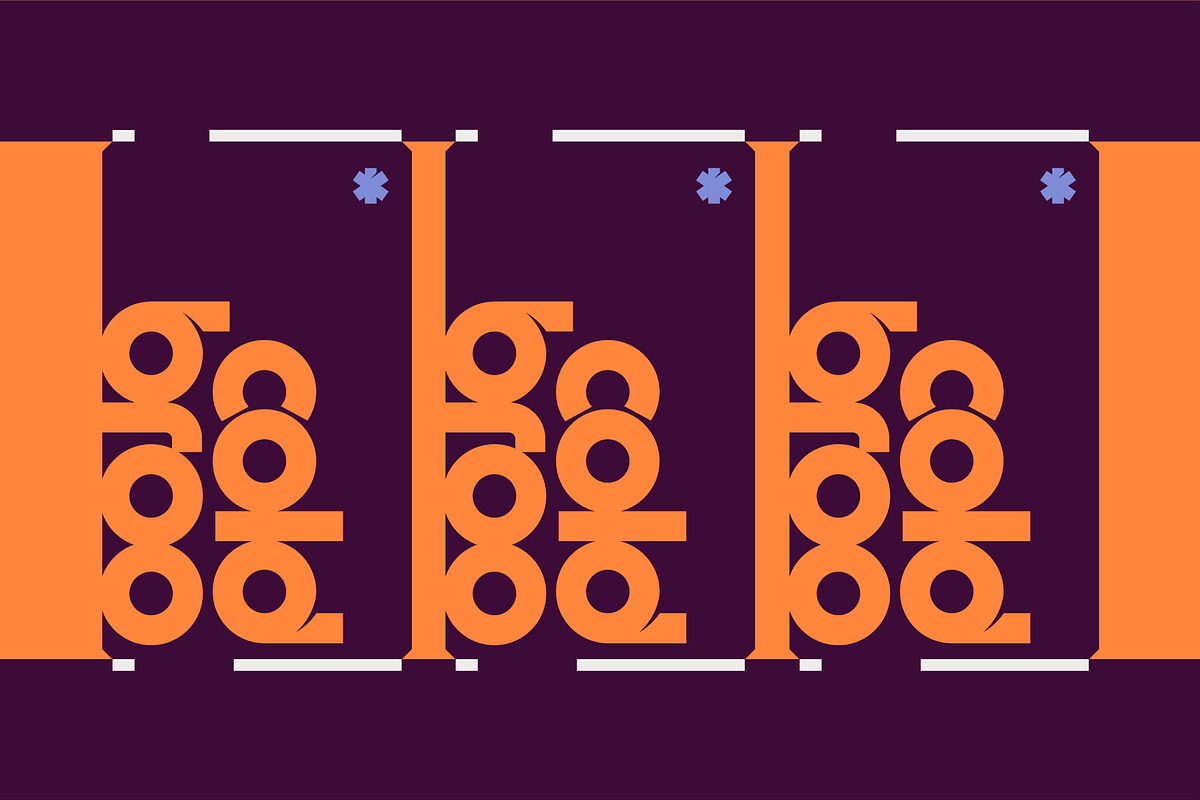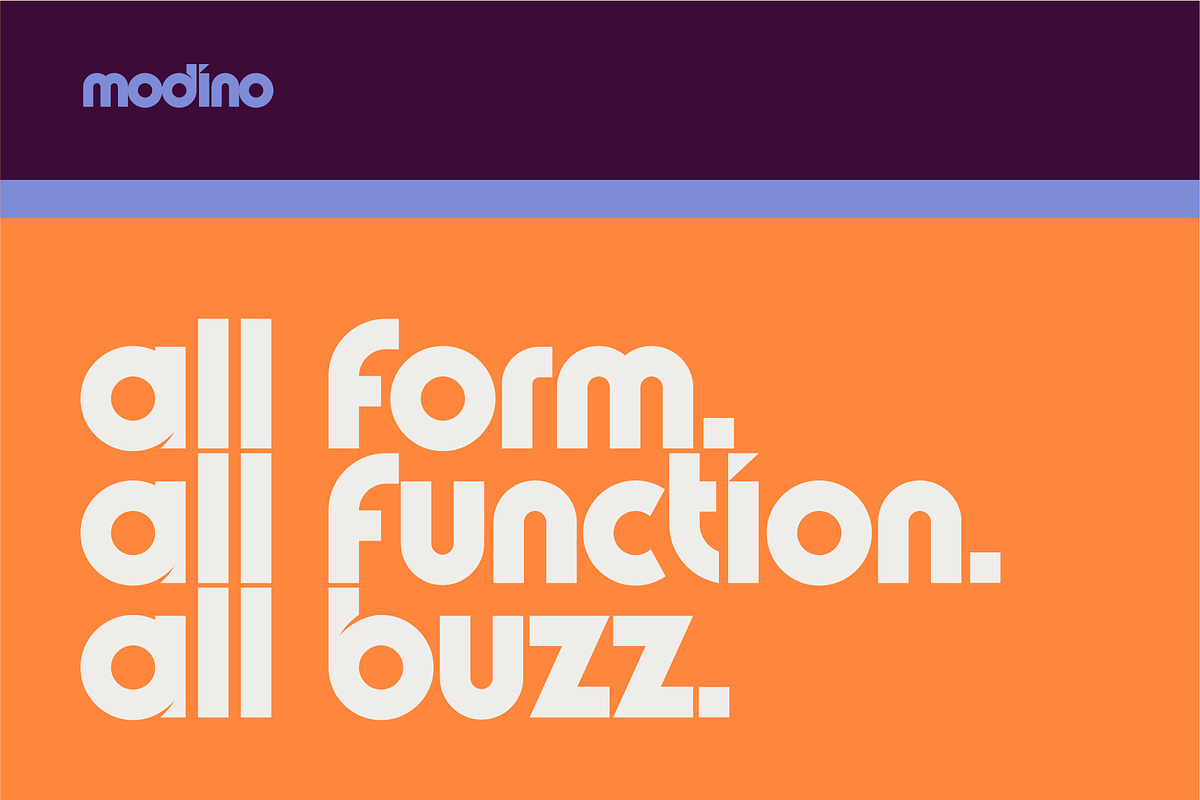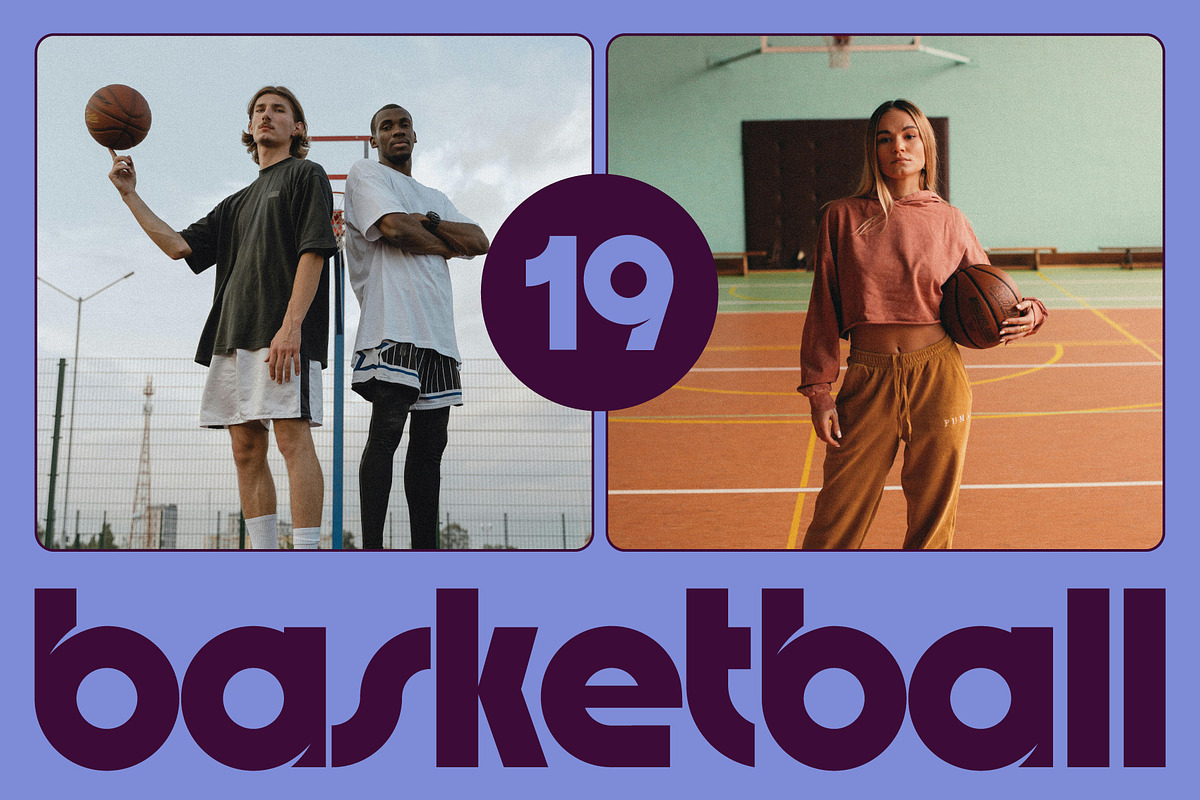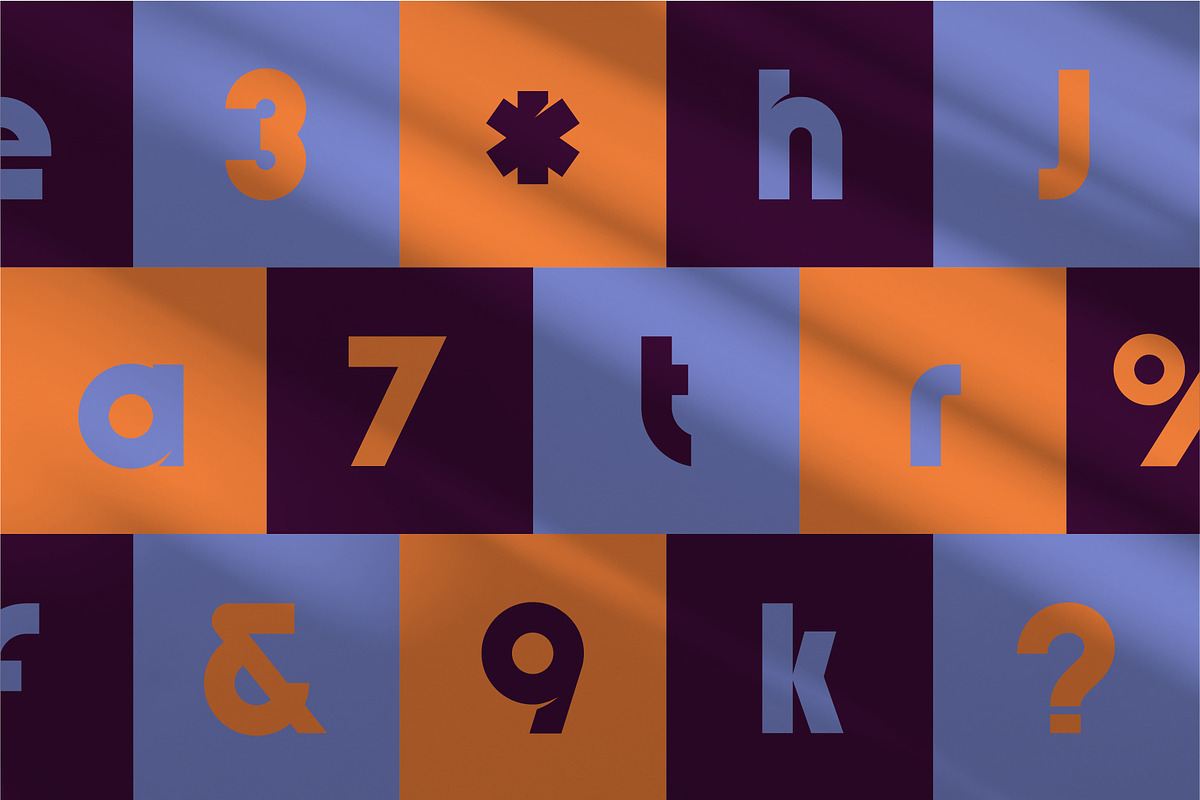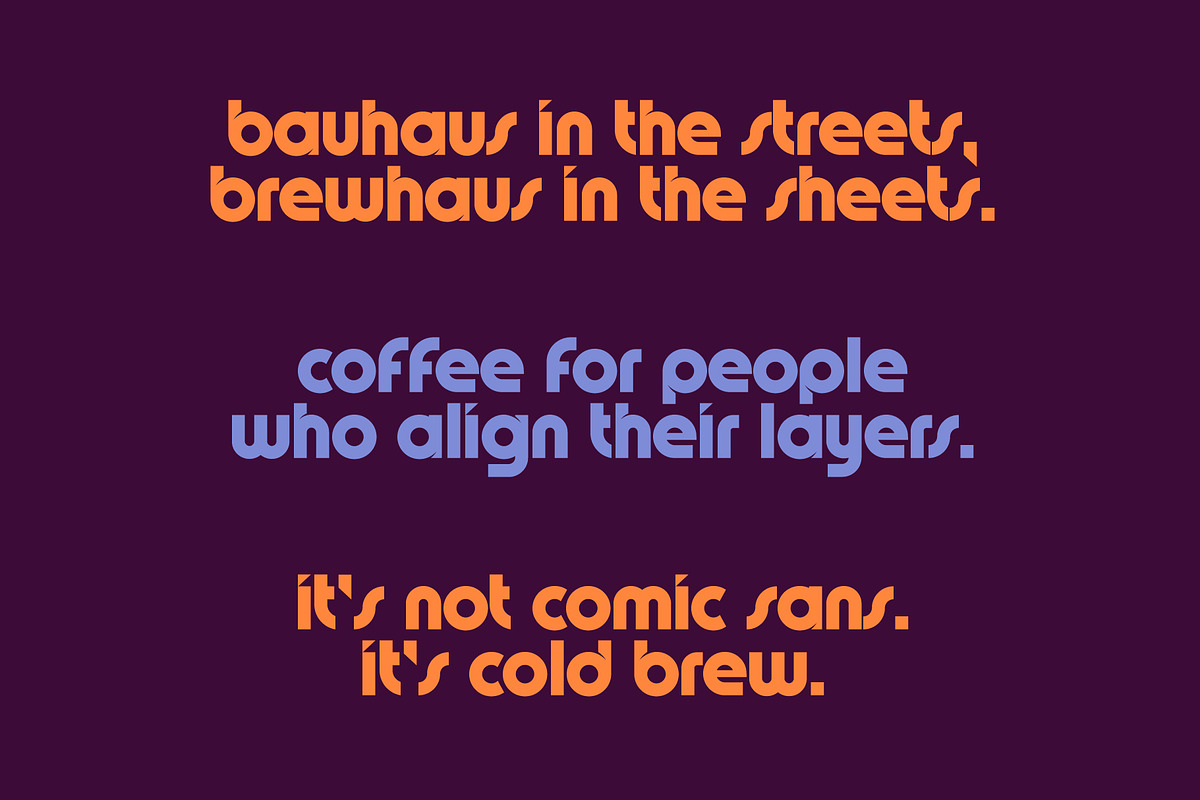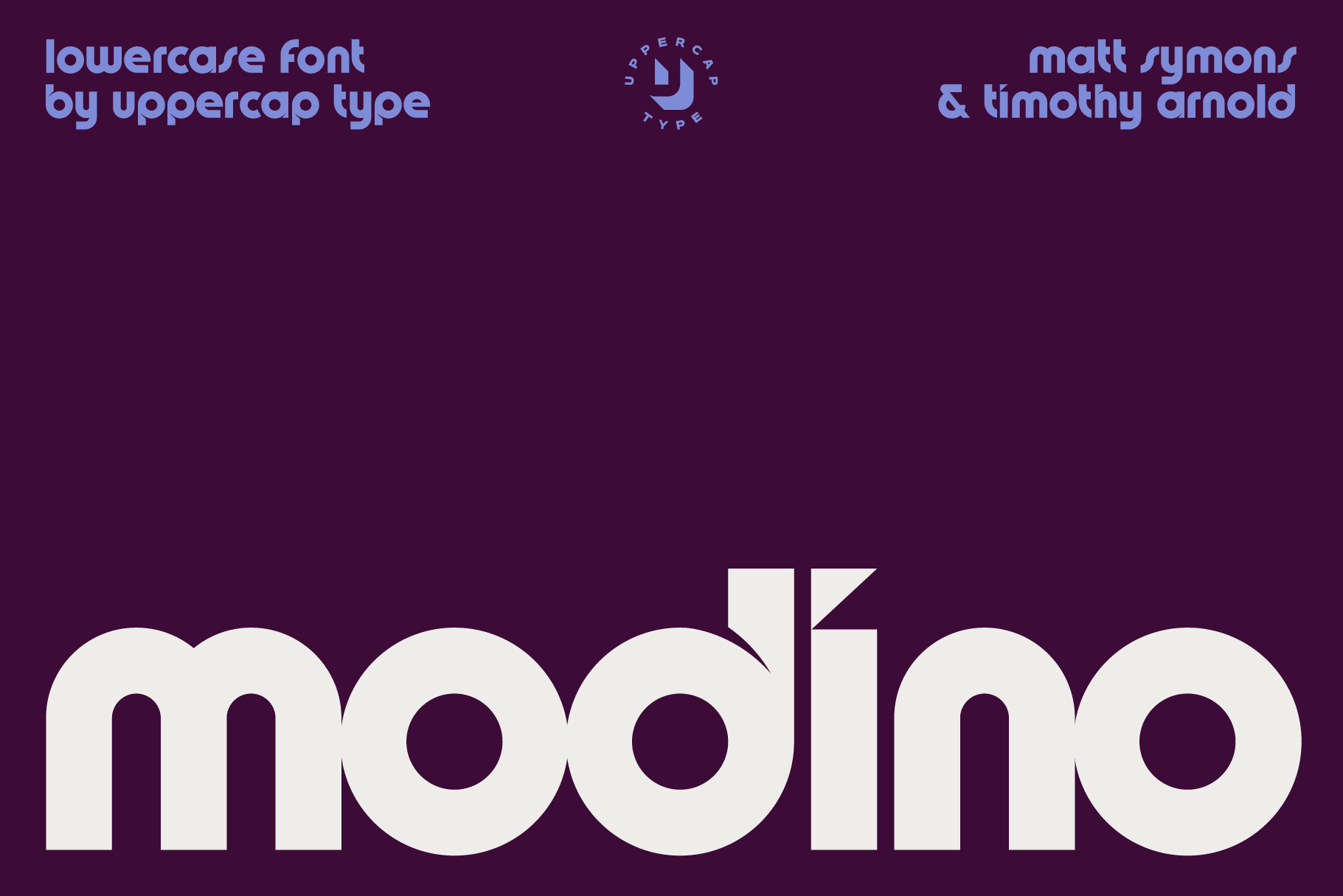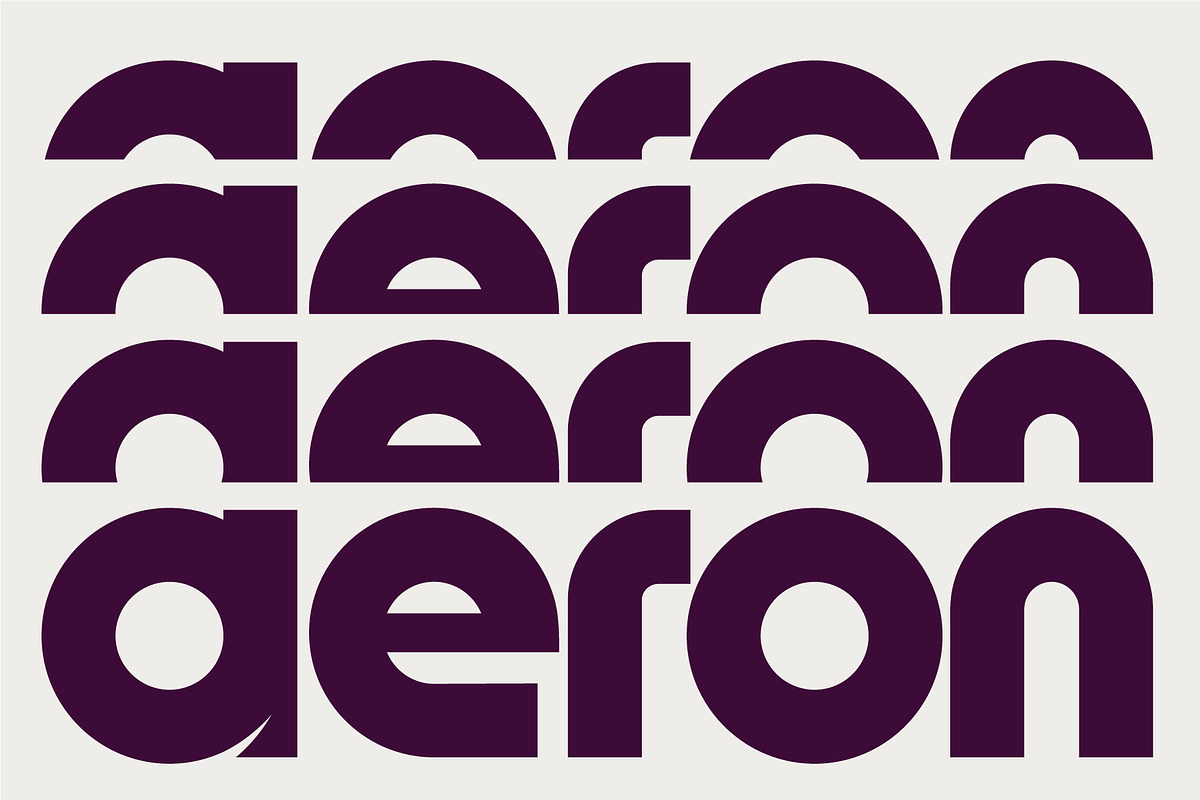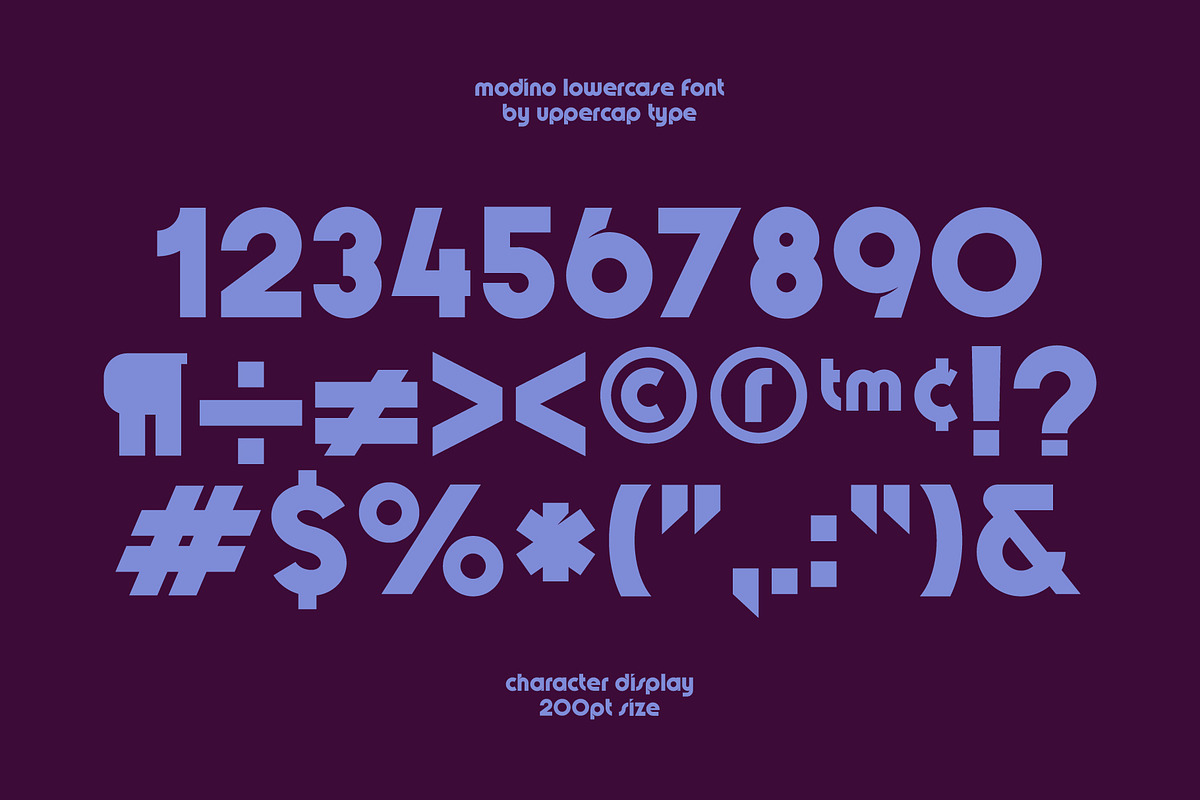
Modino - Geometric Bauhaus Font
Modino is a contemporary display sans, rooted in the Bauhaus movement’s core belief that form follows function. Designed with clean, modular shapes and precise proportions, it brings together the timeless simplicity of modernism with the flexibility demanded by today’s digital and print design. Whether you're building a brand, crafting a web experience, or designing standout editorial layouts, Modino offers clarity, structure, and unmistakable style
Includes, all english lowercase letters, essential punctuation, numbers and special characters.